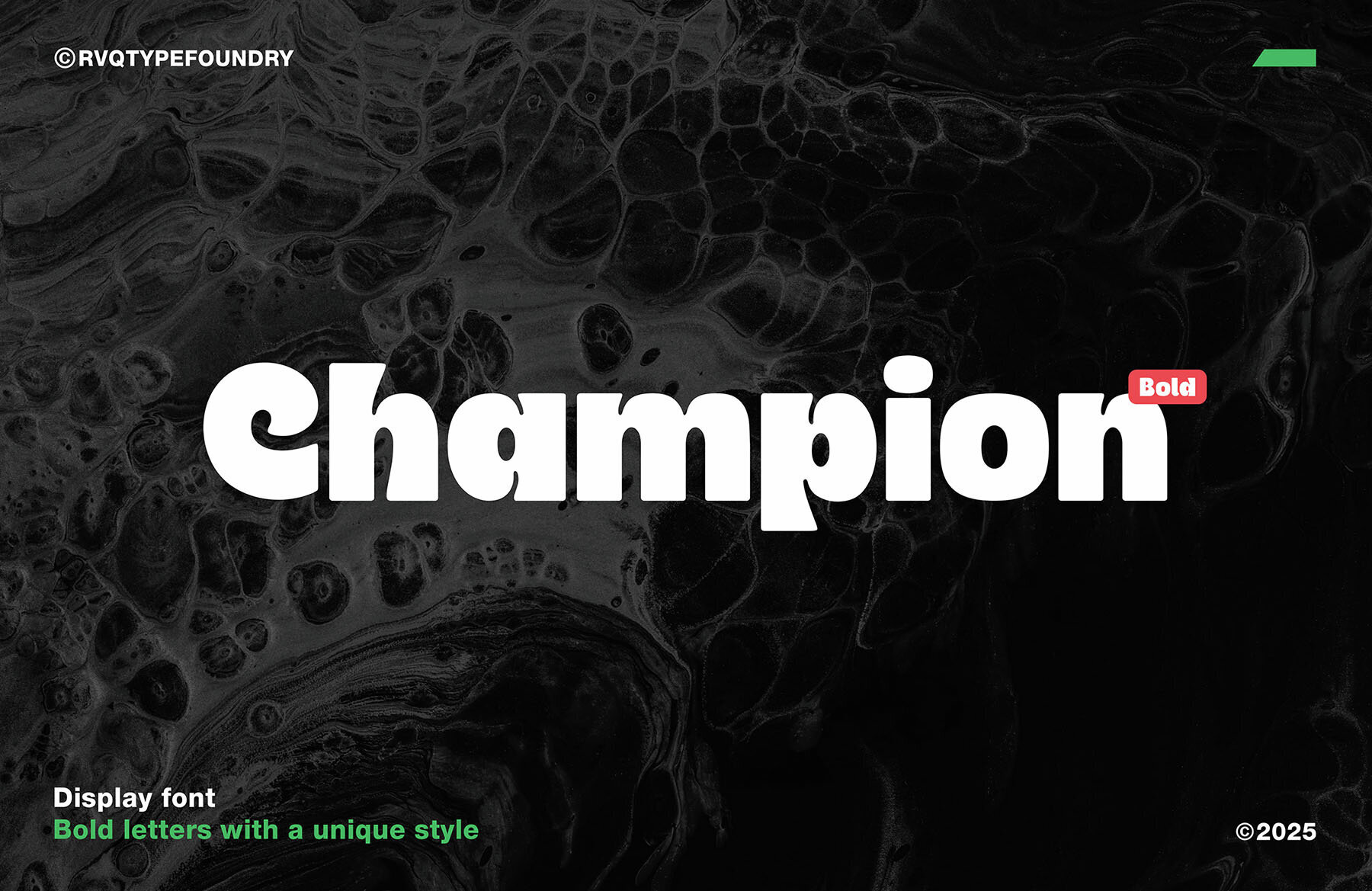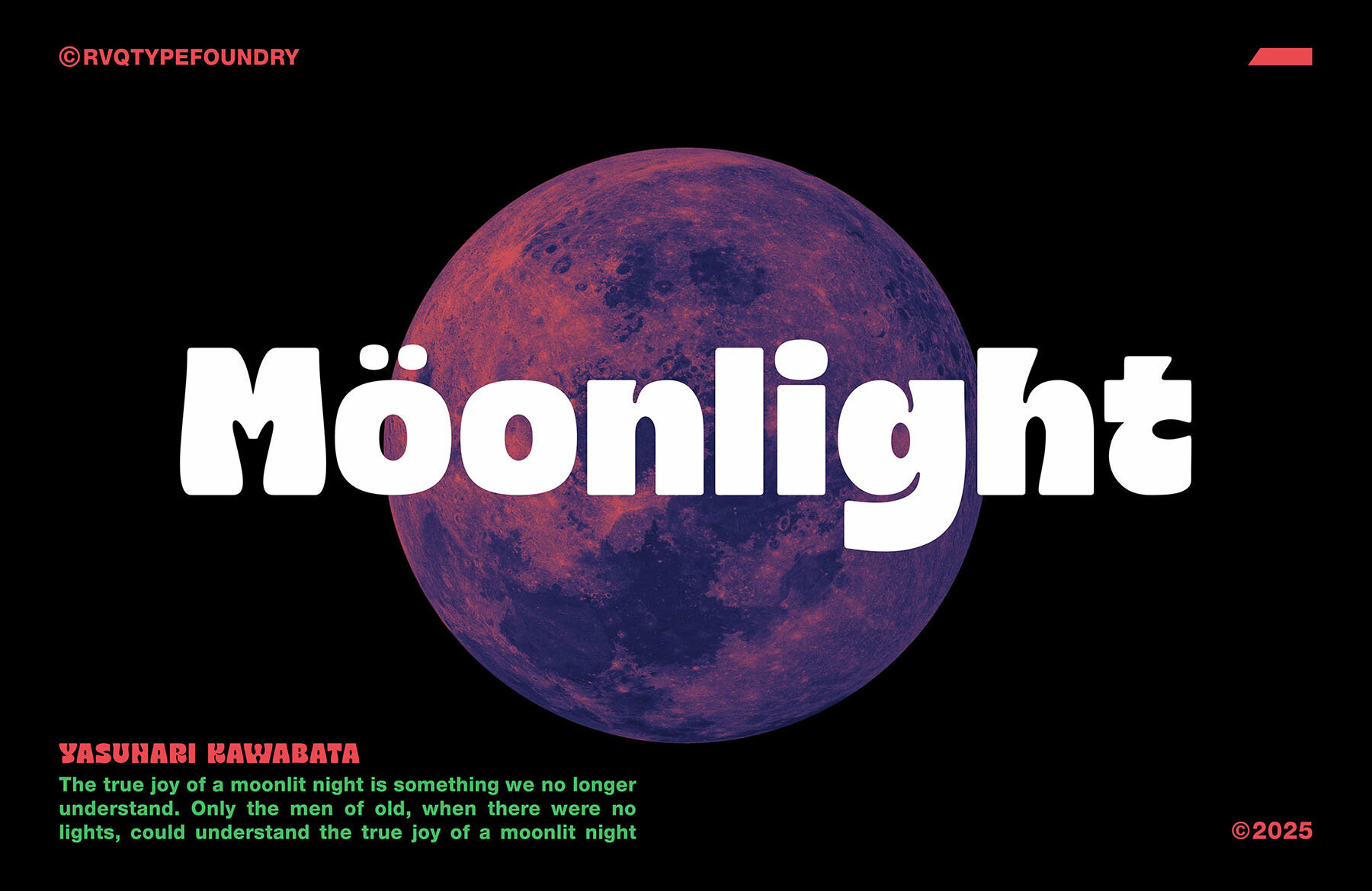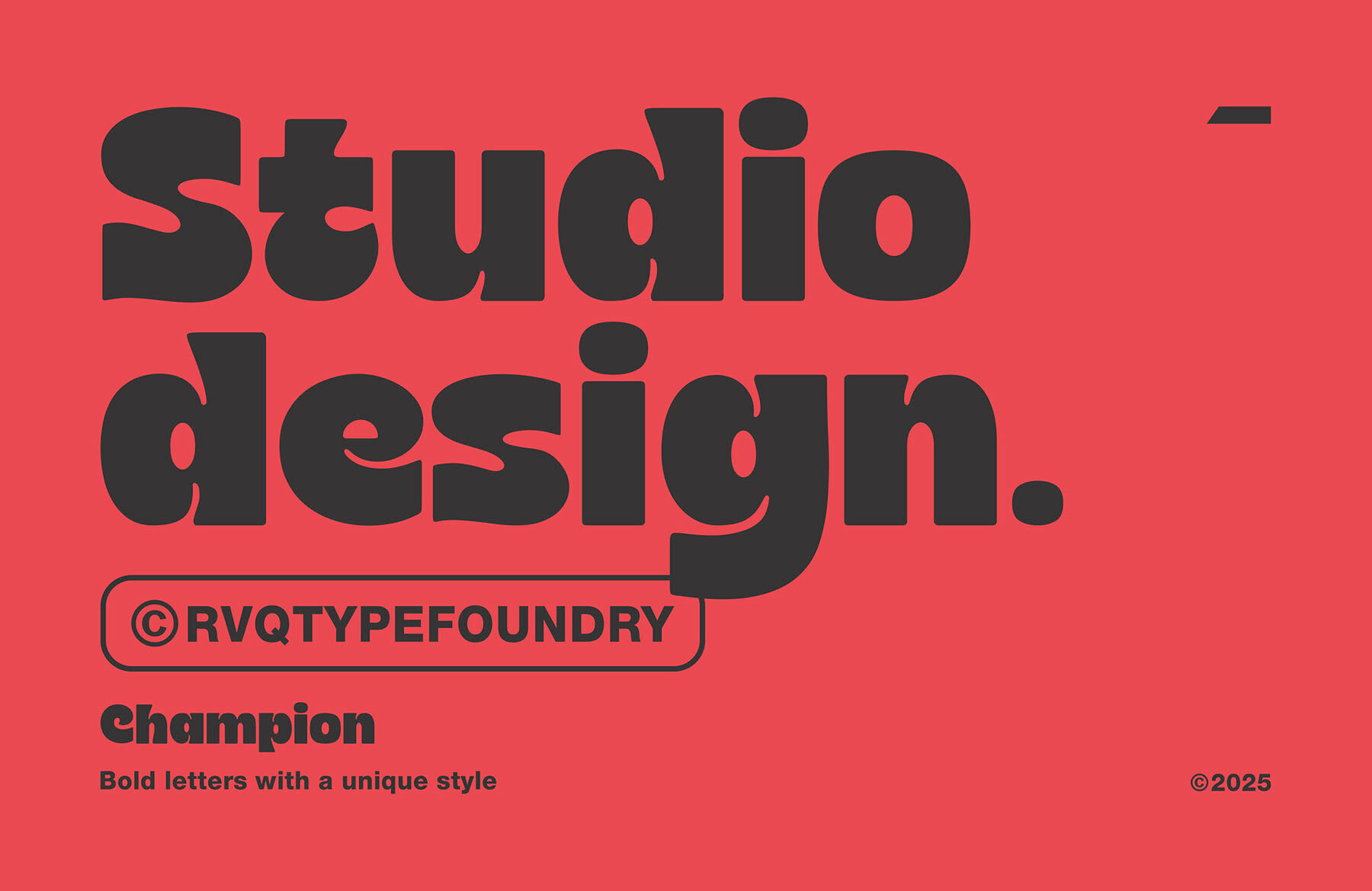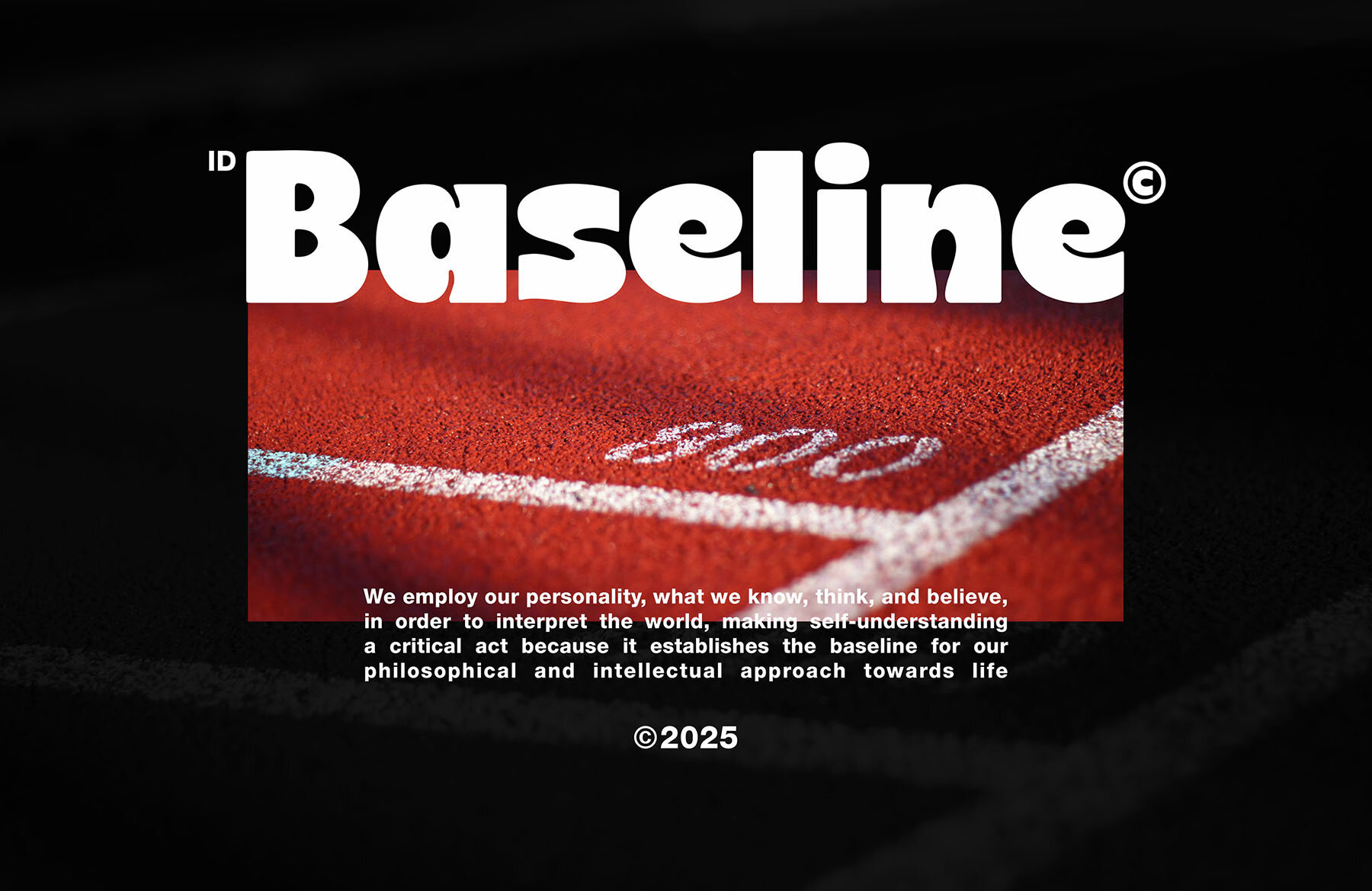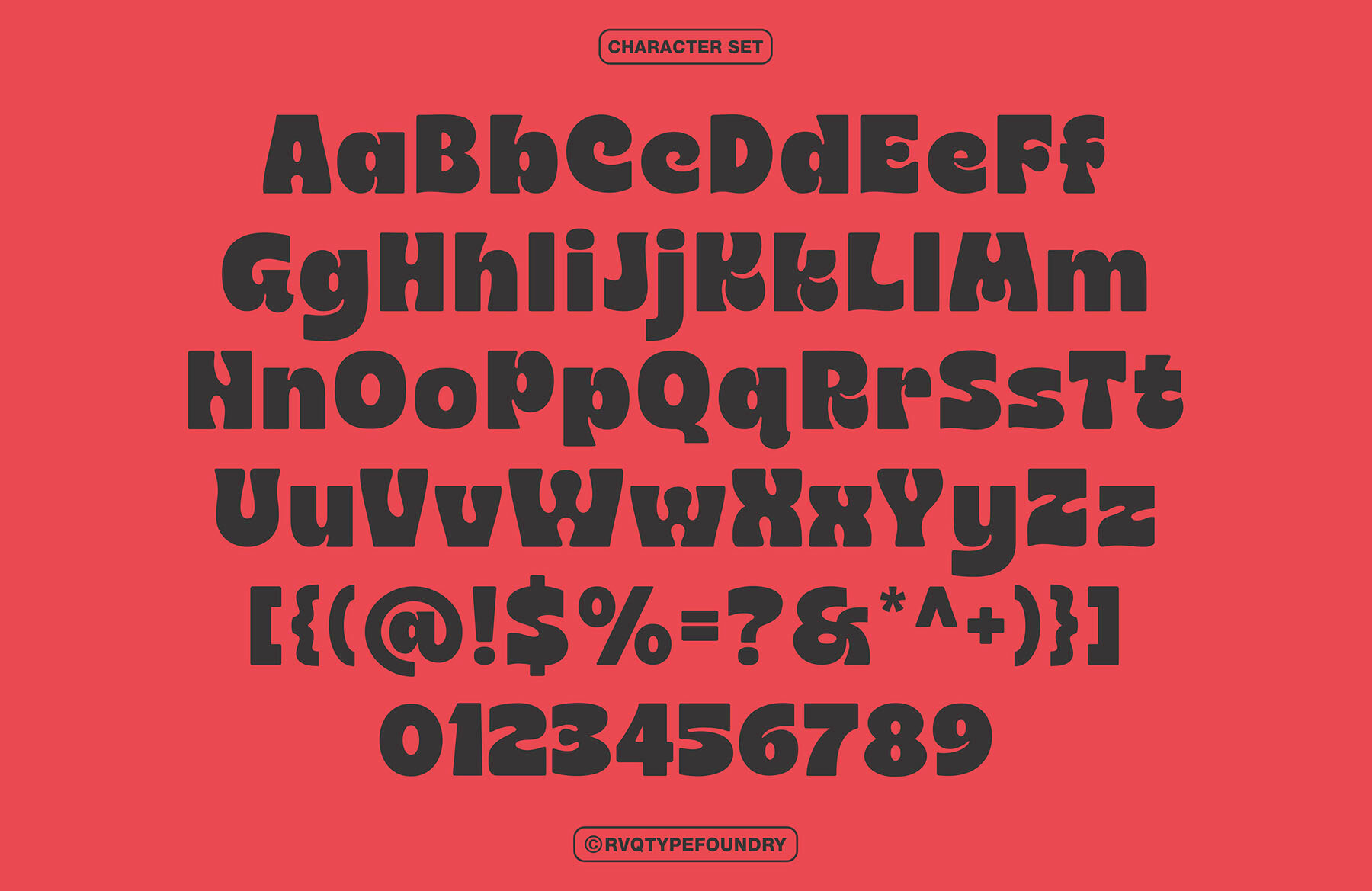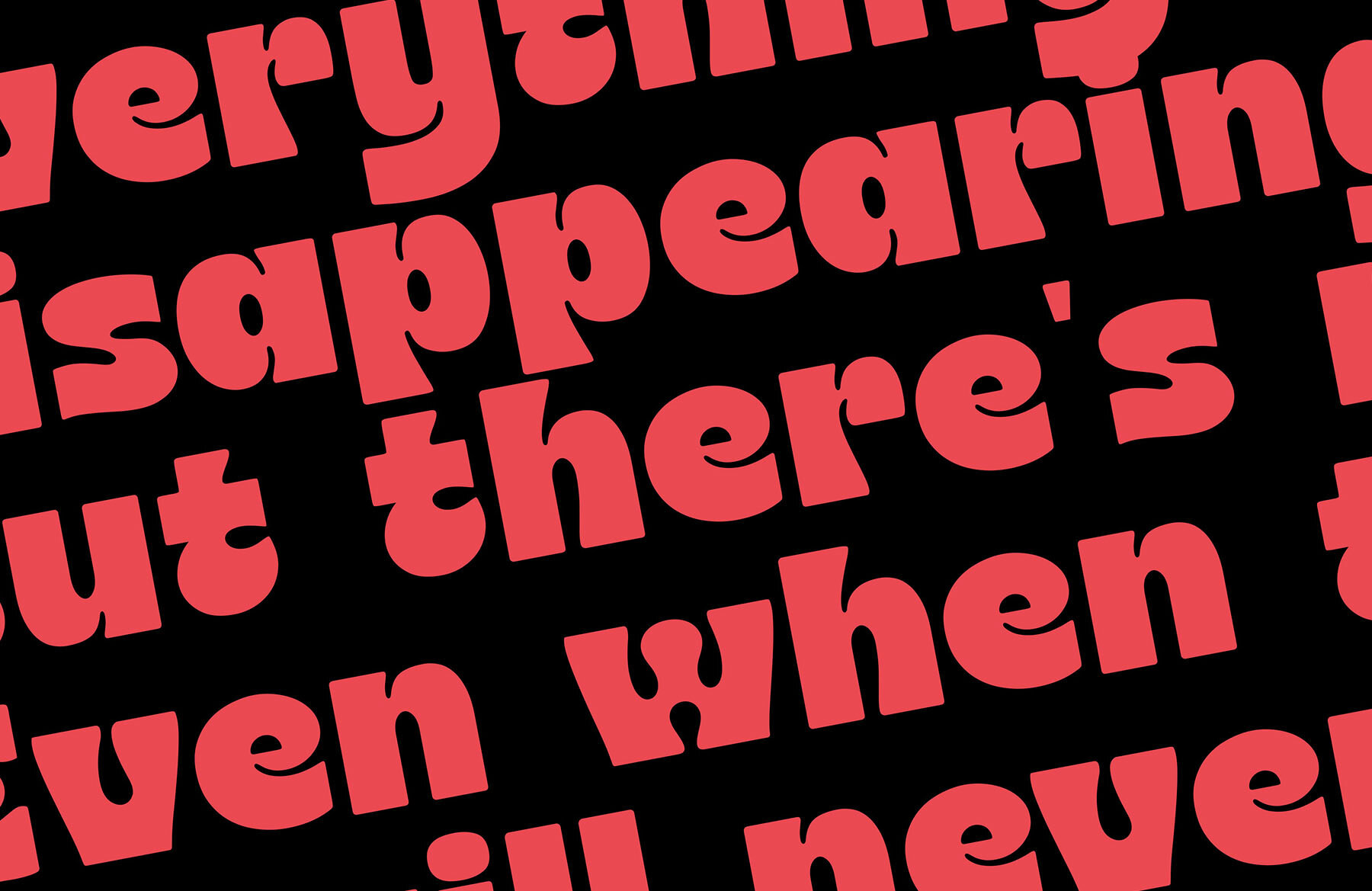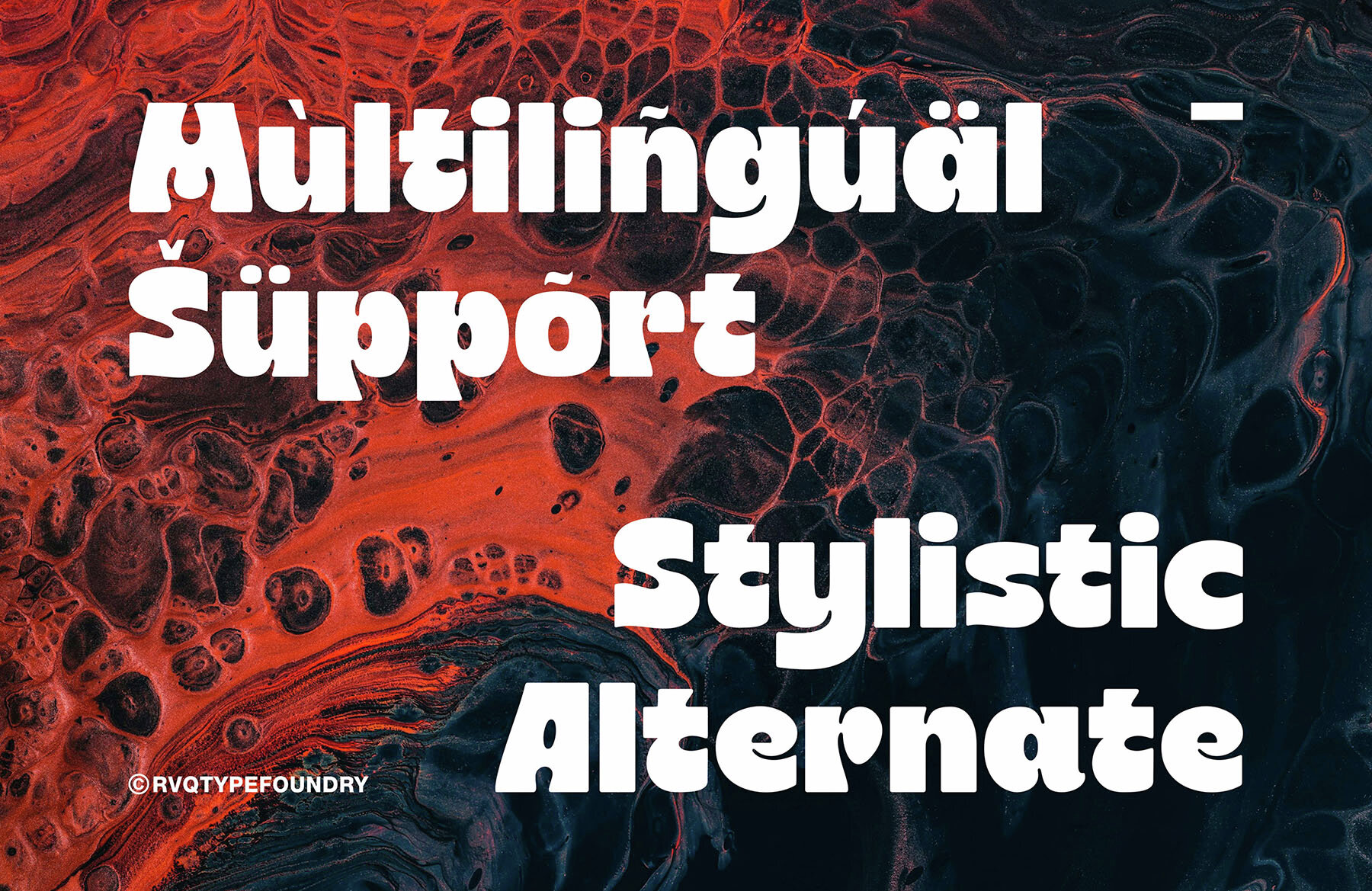
Champion is Bold Font
Champion is Bold is a striking typeface designed to make a statement. This bold font is perfect for creating impactful designs, featuring a full set of uppercase and lowercase letters. Its versatility allows you to enhance various projects by mixing in the alternative glyphs for unique combinations. It supports multilingual characters and includes currency figures, numerals, punctuation, and extra glyphs, making it suitable for a wide range of design needs.
Ideal for branding, logos, greeting cards, stationery, invitations, apparel, and more, Champion is Bold adds a dynamic touch to typographic designs. The font's features include a comprehensive character set from A-Z, numerals, and punctuation following OpenType standards, as well as stylistic alternates. Consider incorporating this font into poster designs, packaging, and other creative projects to achieve a bold, professional look.